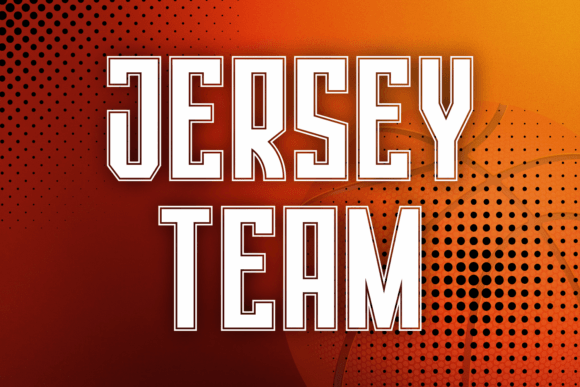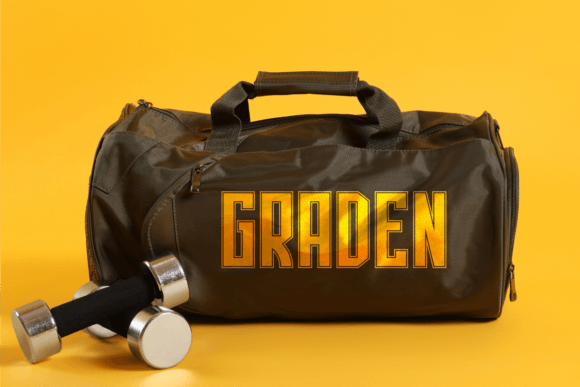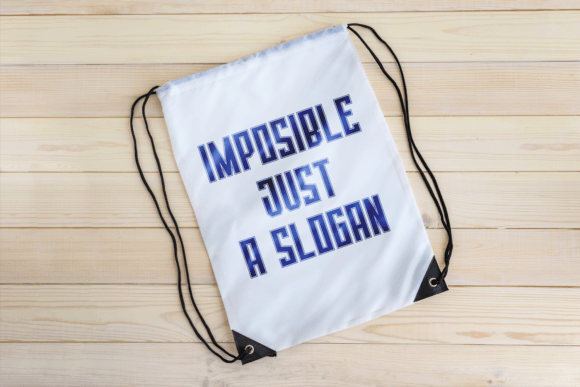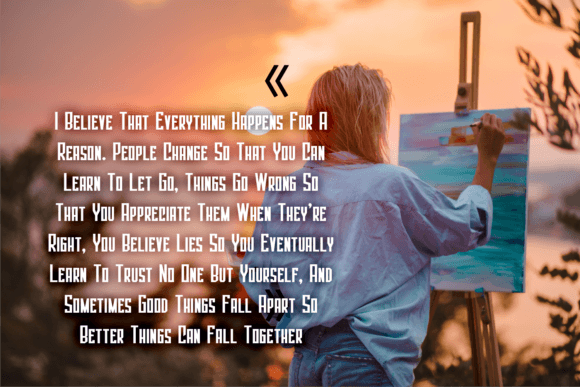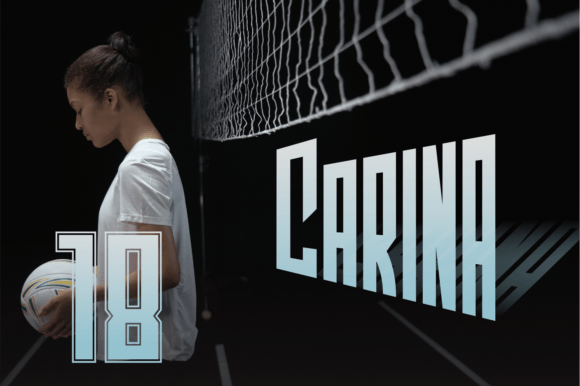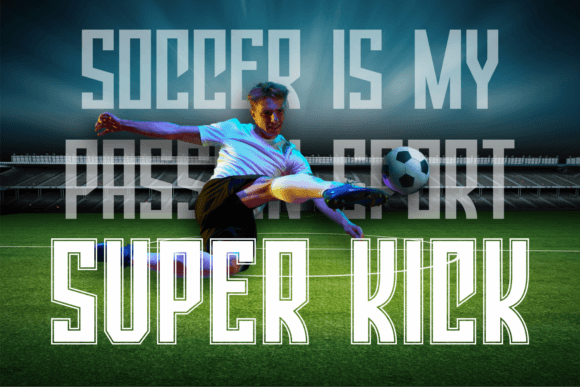
Introduction to Jersey Team Font
Imagine you’re sitting in a packed stadium, surrounded by cheering fans and the electrifying energy of a live sports game. The roar of the crowd, the rush of adrenaline, and the thrill of victory all come together to create an unforgettable experience. For designers, capturing that essence in a creative project can be just as exhilarating – and that’s where the Jersey Team Font comes in.
This high-quality typeface is specifically designed for sports-themed apparel, offering a unique and dynamic presence that’s sure to make your designs stand out. With its versatility and extensive character set, the Jersey Team Font is the perfect resource for designers looking to elevate their bespoke designs. And the best part? It’s available for free download, complete with a transparent background, making it a valuable addition to any design arsenal.
Key Features of Jersey Team Font
- High-quality design for a creative project, ideal for sports teams or any organization
- Perfect as a design resource for creating jerseys, logos, or any other sports-related graphics
- Unique characteristics include a bold, modern design and a variety of customizable elements
- Designed to be easily scalable, making it perfect for use on merchandise, signage, or digital displays
Honest Review: Jersey Team Font
- High-quality typography
- Perfect for creative projects and design resources
- May not be suitable for complex or highly customized designs
Overall, I’m really impressed with the Jersey Team Font. It’s a great addition to my design resources and I’ve already used it in several projects. While it may have some limitations, the benefits far outweigh the drawbacks. I’d definitely recommend it to fellow designers and creatives.
Use the Jersey Team Font with a transparent background to create a modern and sleek design. Experiment with different font sizes and colors to get the most out of it.
The Jersey Team Font is commonly used for sports-related designs, such as jerseys, team logos, and sports equipment. It is also used for creative projects, such as posters, flyers, and brochures.